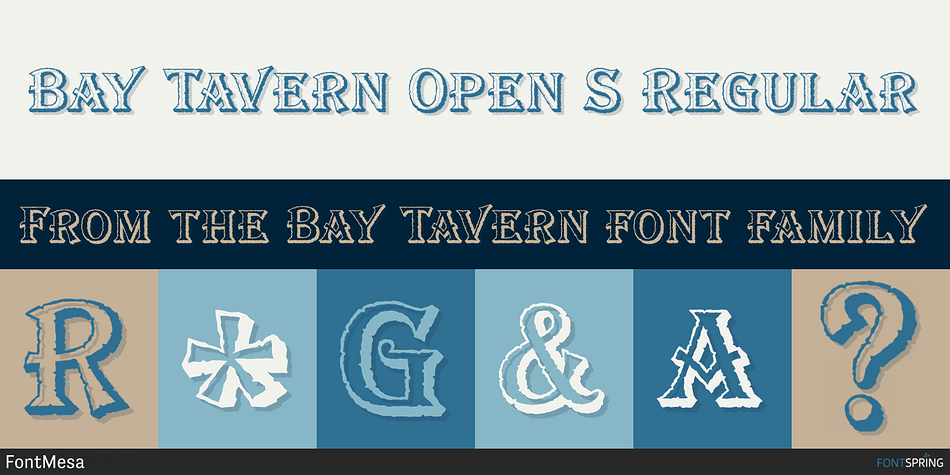
Bay Tavern Open S Regular
Designed by Michael Hagemann, Bay Tavern is a display serif and serif font family. This typeface has seventy-two styles and was published by FontMesa.
Bay Tavern is the first weathered version of our Tavern font that’s based on Algerian.
With three weights, open faced and outline versions to choose from you’re sure to find the right style for your new project, restaurant menu, logo, t-shirt design or Pirate costume party.
Bay Tavern includes all the same alternates as our regular Tavern font family.
While our original Tavern font has been increased to include five weights additional weights for Bay Tavern will have to wait for now, adding the notched cut in’s were all done by hand which causes a lot of cramping so a long break is needed before creating the extra weights.